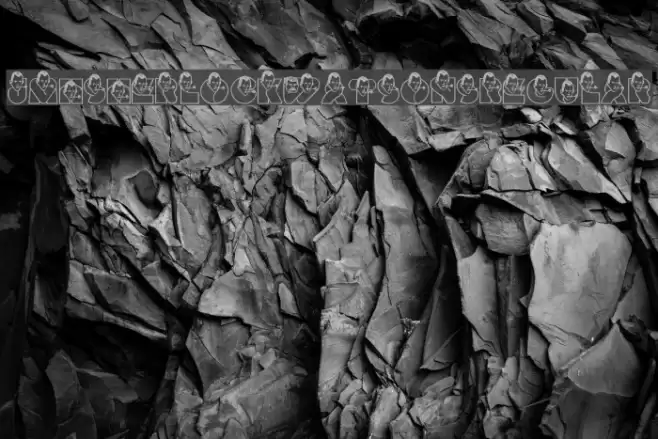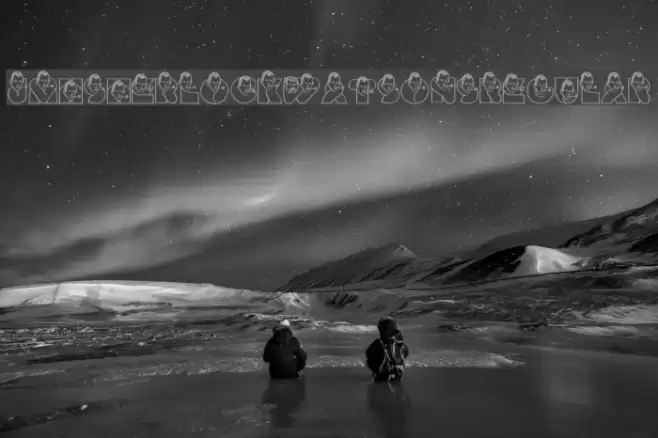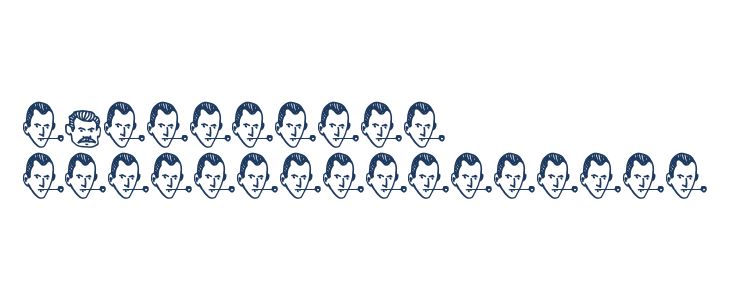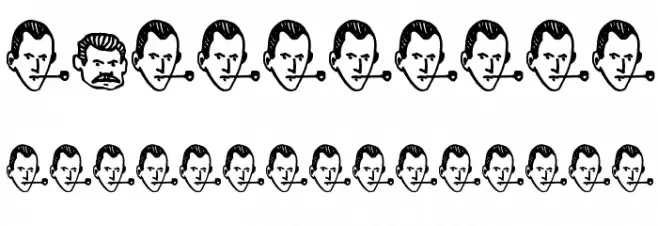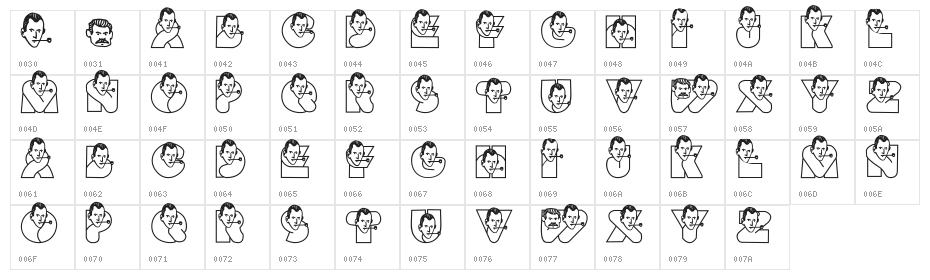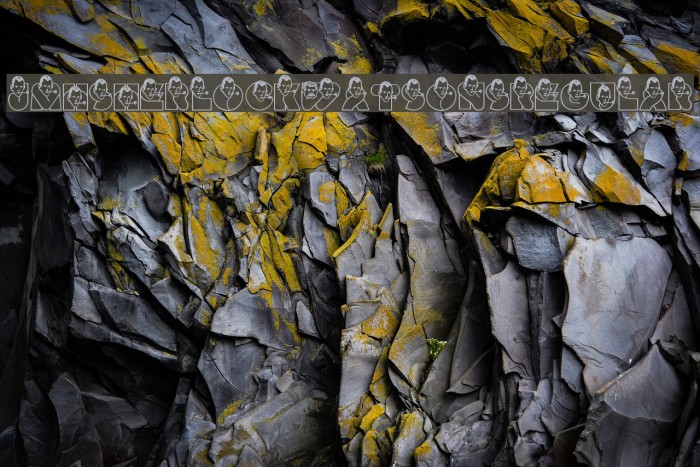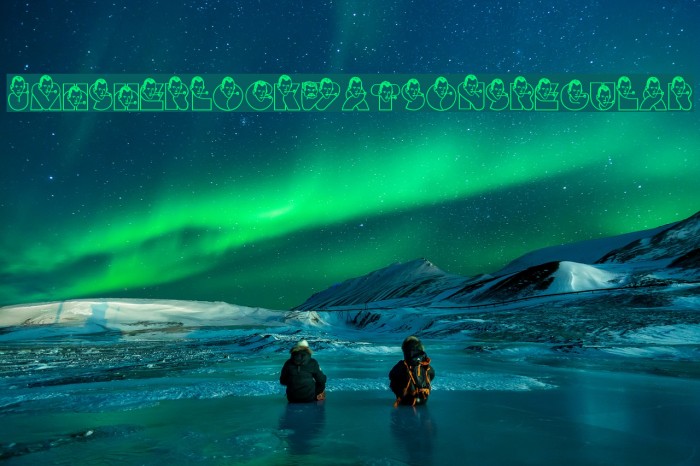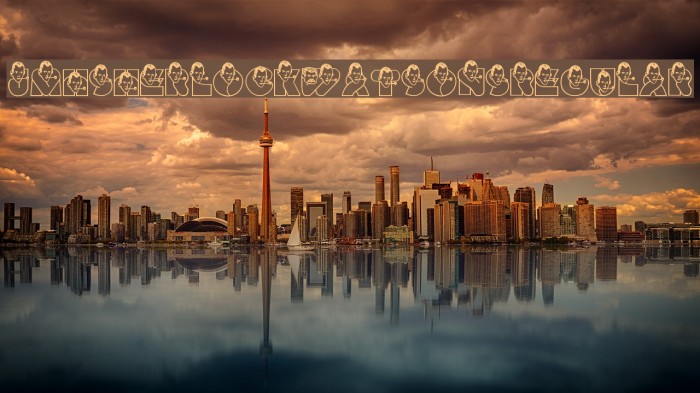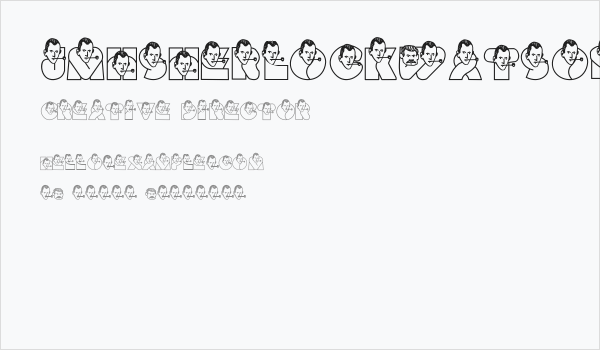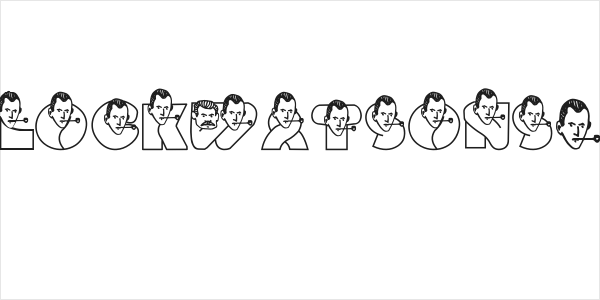
JMHSherlockWatsonS-Regular Font
JMHSherlockWatsonS-Regular Description
This playful and unique font features characters designed with a detective theme, incorporating stylized faces into each letter and number. The characters are bold and eye-catching, with a whimsical touch that makes them stand out. The design integrates elements of mystery and intrigue, making it ideal for projects that require a distinctive and thematic typeface. The font maintains a consistent style across uppercase, lowercase, and numerical characters, with special characters also following the same design motif. Its decorative nature makes it suitable for creative and thematic applications.
A detective-themed decorative font with stylized faces in each character from Uncategorized fonts.